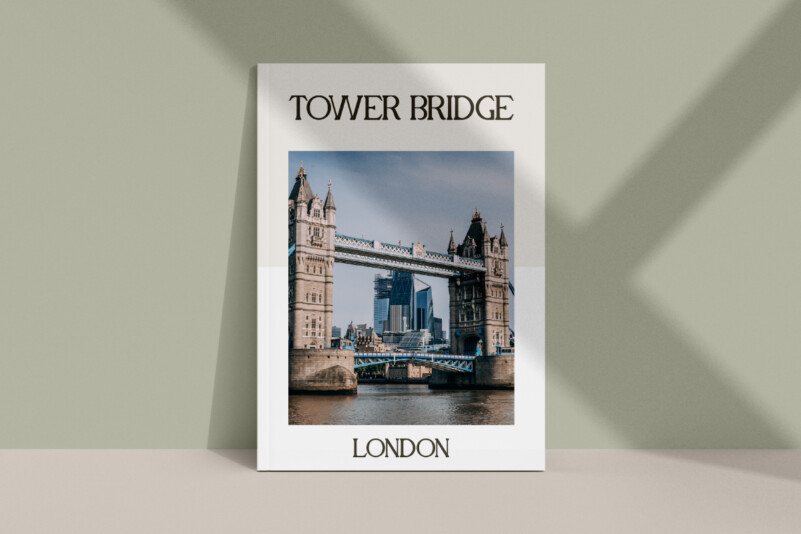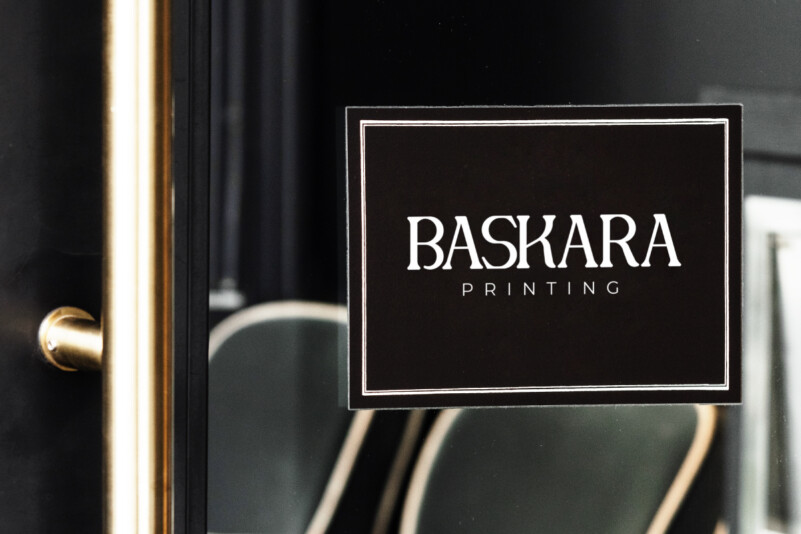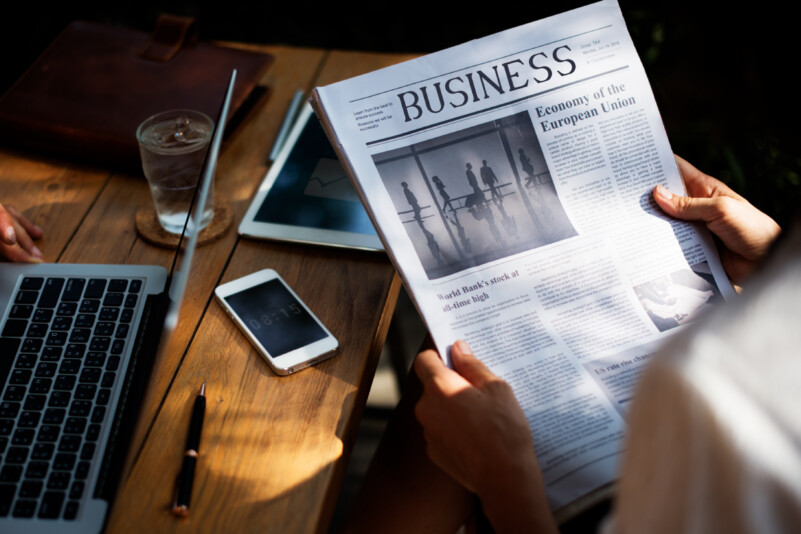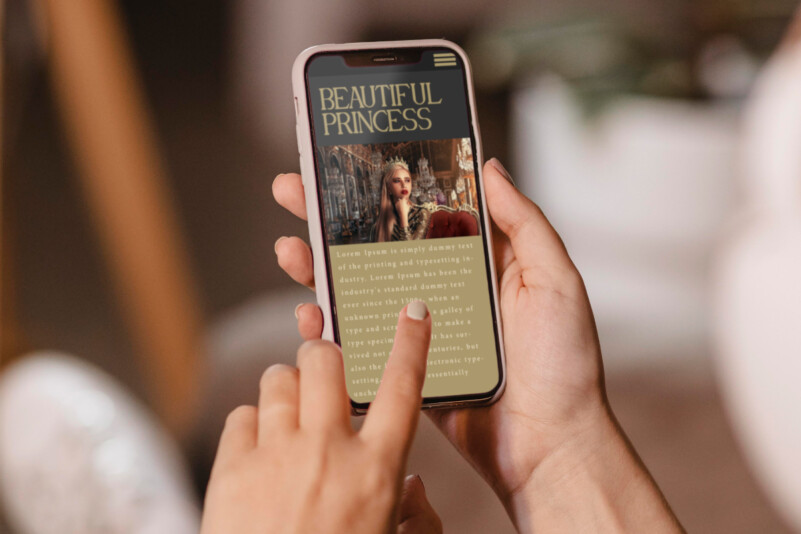
Balancing News Font
Balancing News Font is a serif display font with a contemporary style. It will be able to elevate your designs to high level, such as apps, billboard, brand logo, brochure, business card, catalog, cover, embossed design, flyer, header, invitation, label, magazine catalog, mockup design, newspaper, poster, product packaging, quote, screen print, signage, stationery, sticker, title, website, etc.